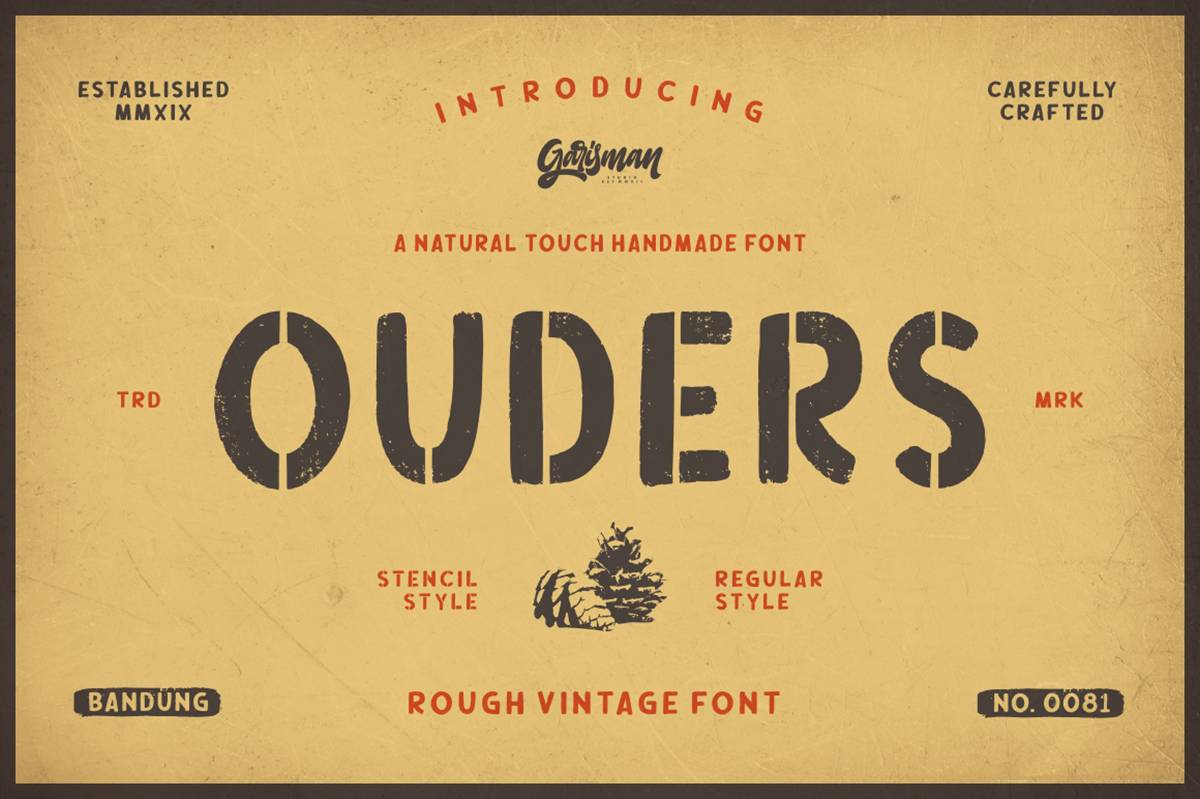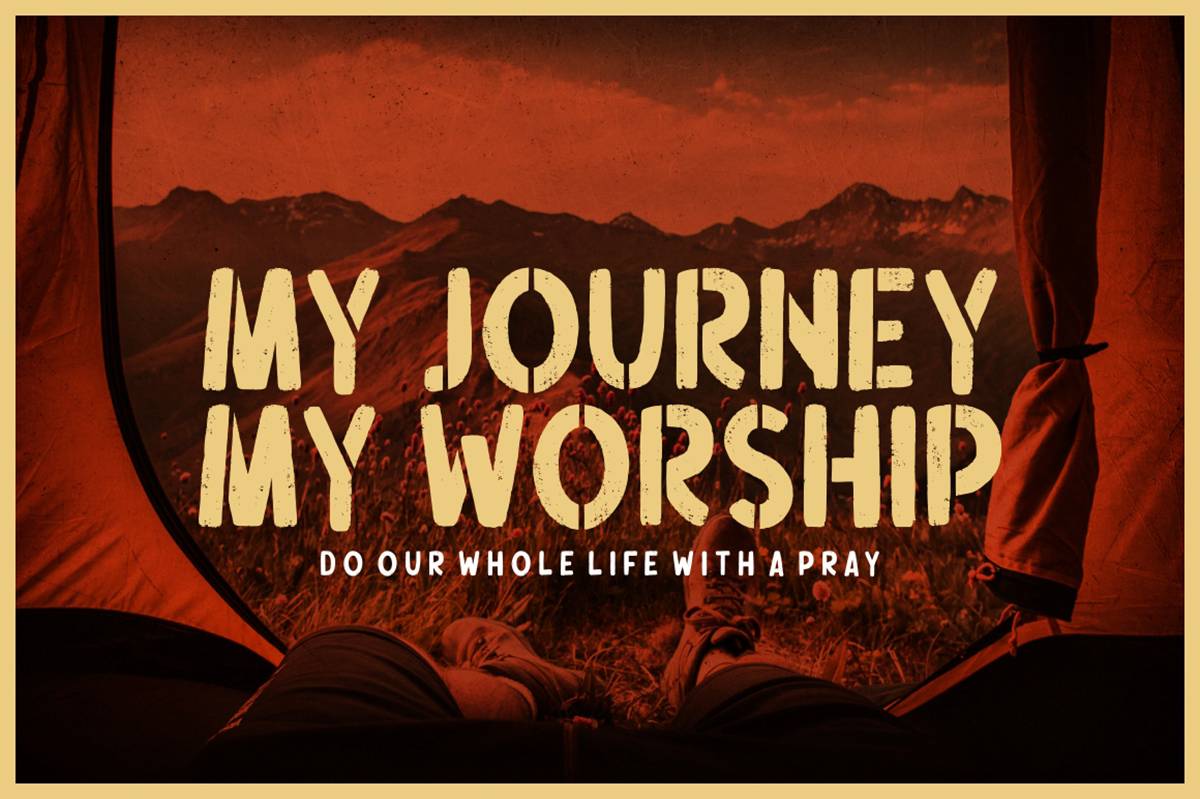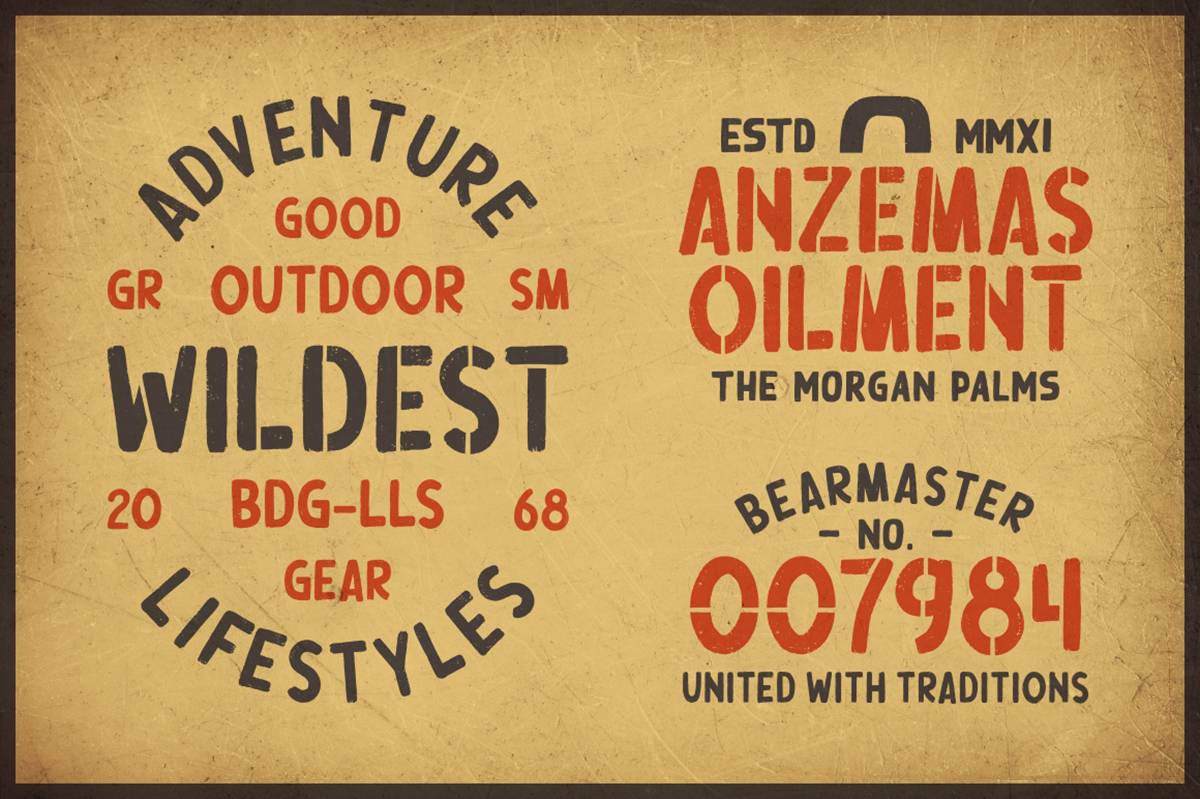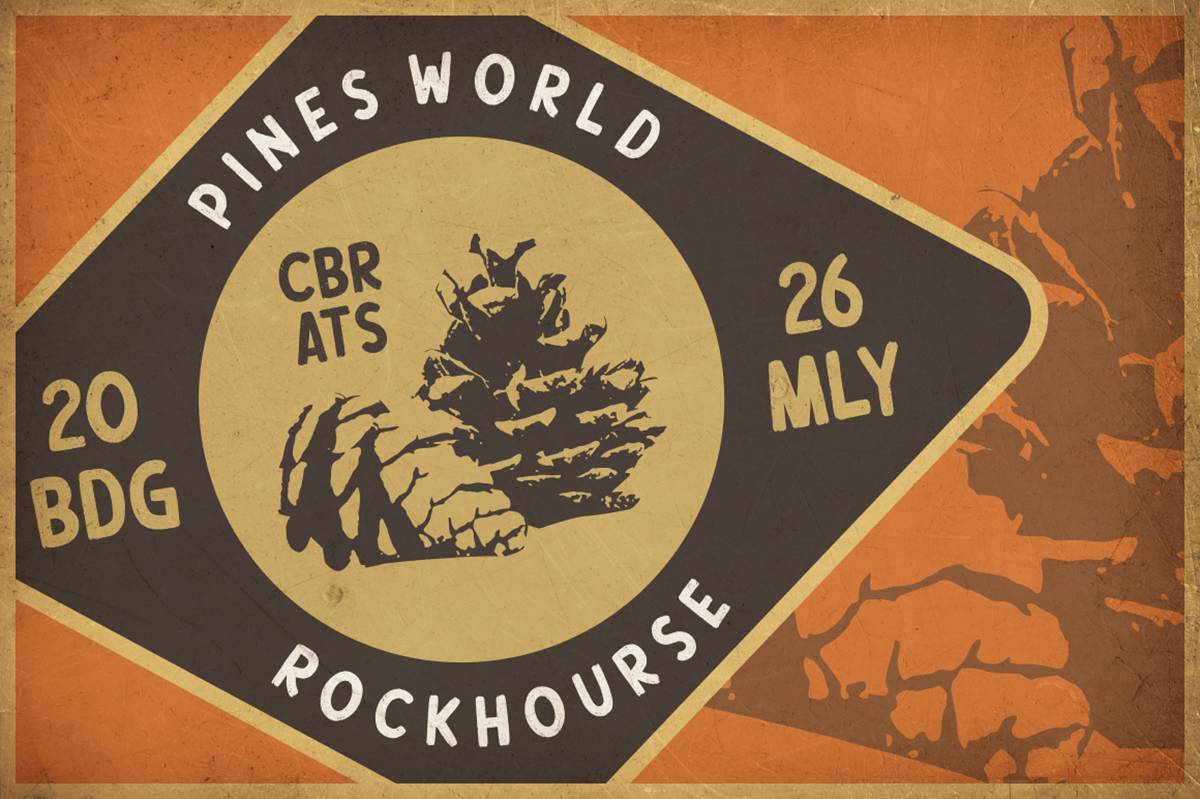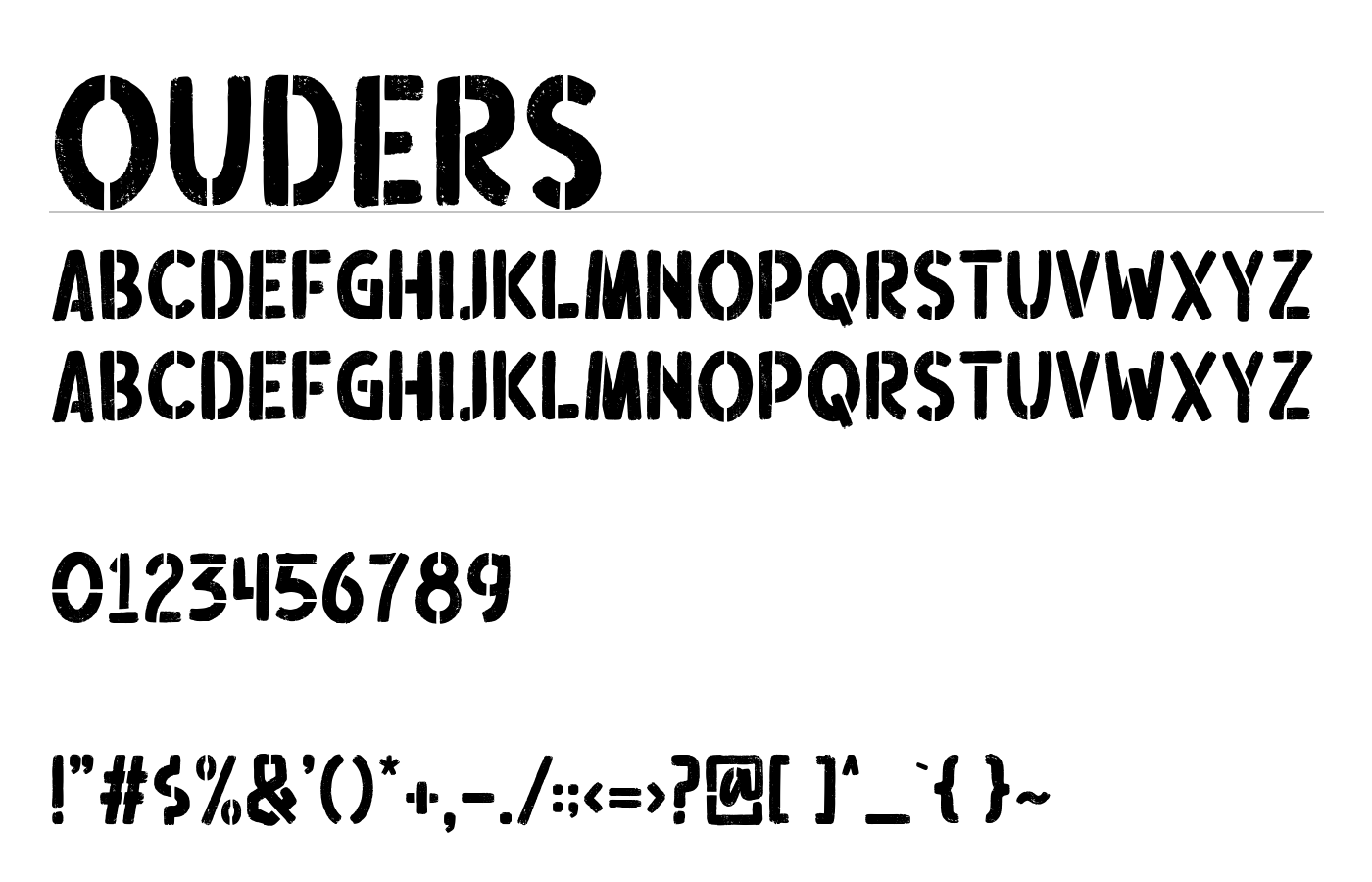
Ouders is a bold, condensed sans serif font with a distressed, stencil-like texture that gives it a rugged, industrial feel. Its uppercase letters are uniform in height with a slightly irregular, handcrafted look, making it ideal for designs that need a strong, vintage or military-inspired character. This font works great for posters, packaging, and branding that aims to evoke toughness and authenticity with a modern edge.
Ouders Font
About Ouders Font
| Font family | Ouders Font |